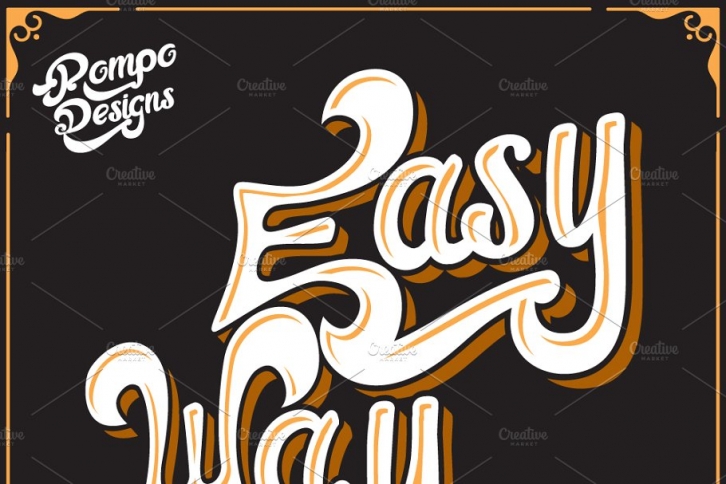
Say hello to Easy Way Font! .
Easy Way Font! is a handlettering font inspired by handmade lettering and typography. The font have smooth edges to simulate vintage printing, so it will bring a handdrawn classic look feel.
Easy Way Font! has beautiful alternates for uppercase .